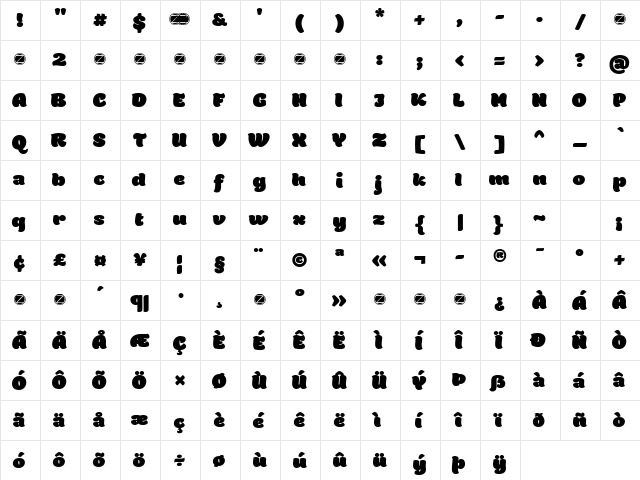
Holden Trial Fat
Fat · Zetafonts Cosimo Lorenzo Pancini ·
Design Context for Holden Trial Typeface
Holden Trial is a composed and adaptable typeface that performs quietly and consistently across a wide range of design contexts.